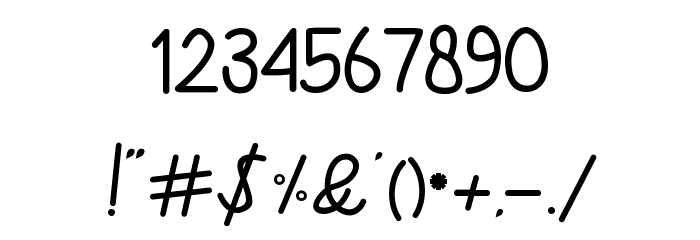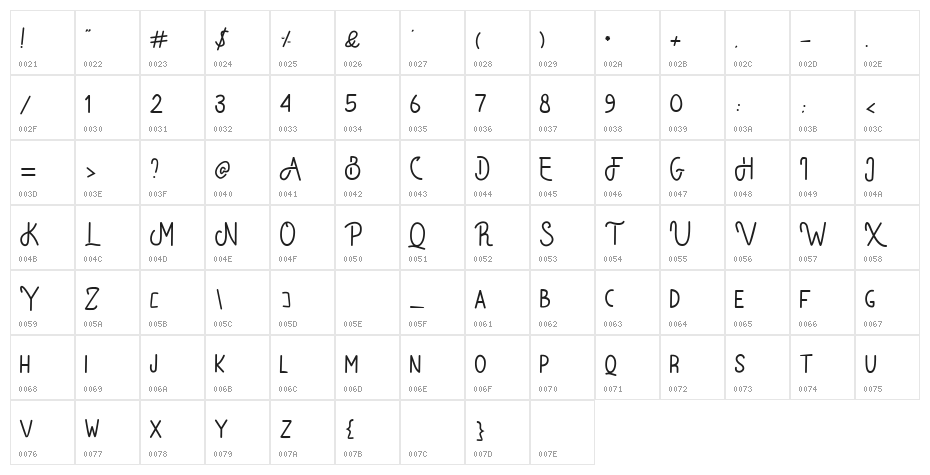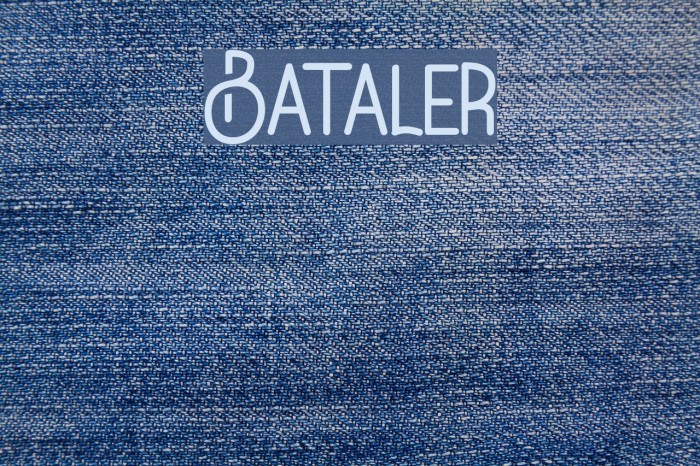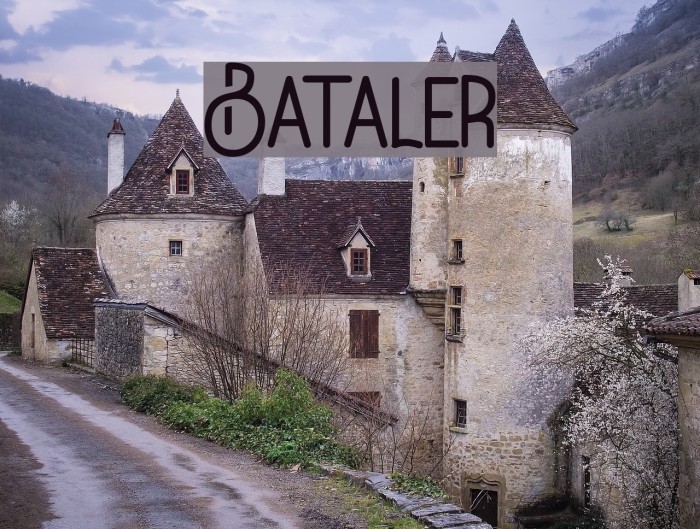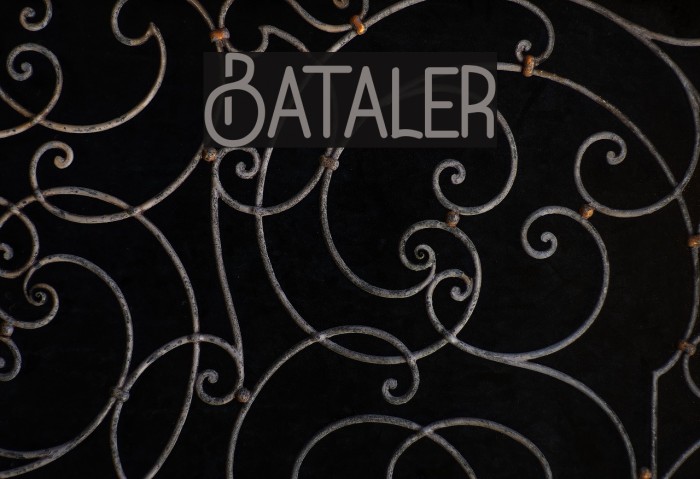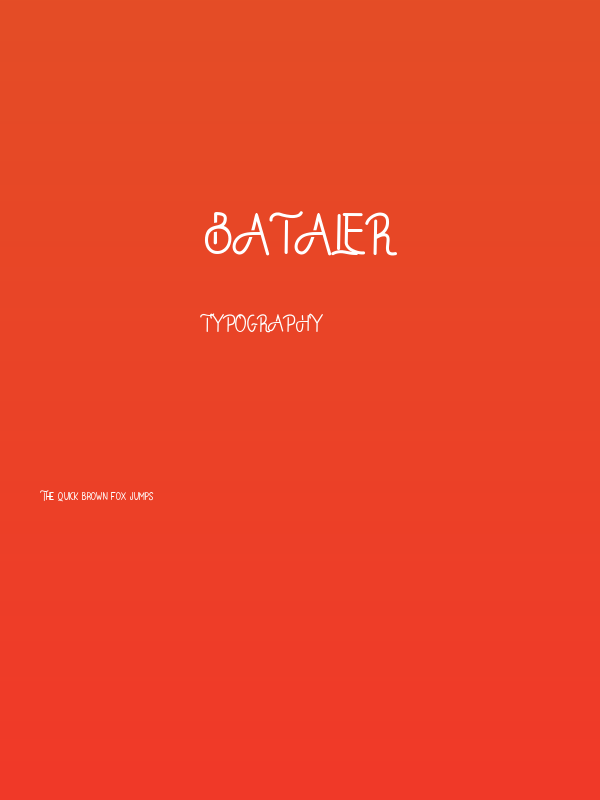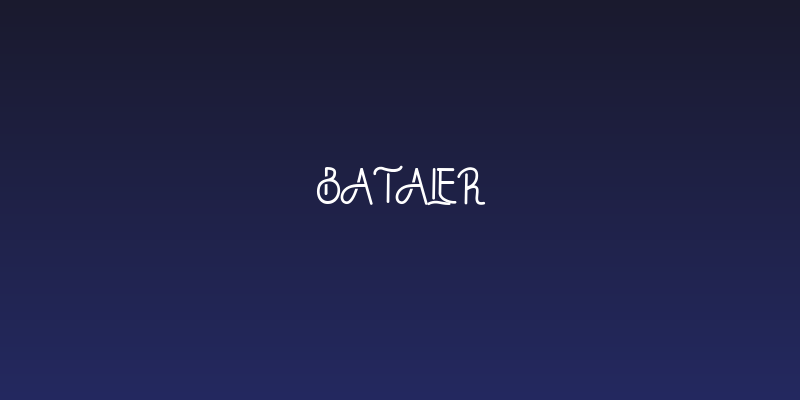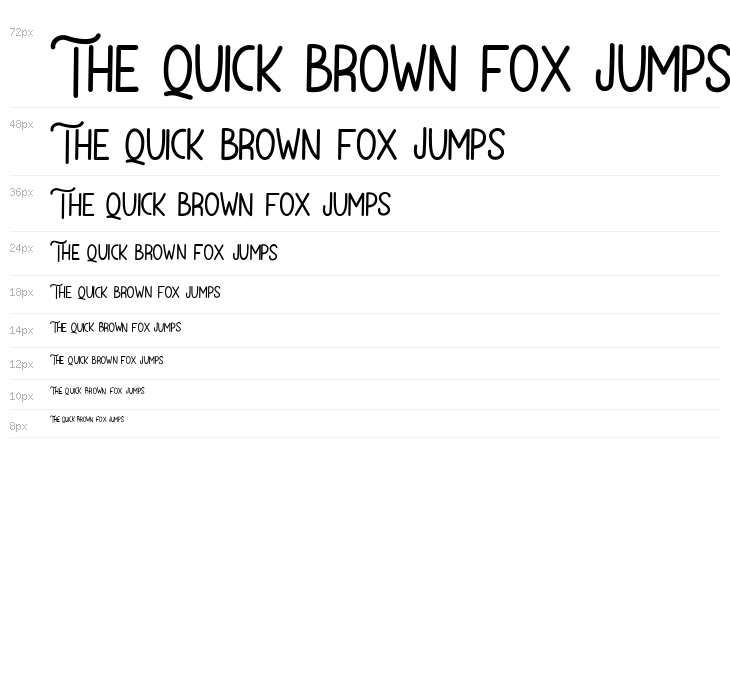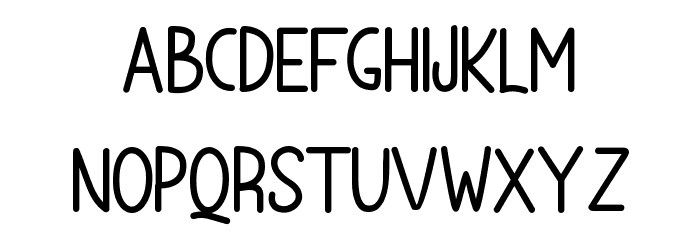
Bataler Font
Bataler Description
This playful and artistic font features a unique blend of curves and straight lines, creating a whimsical yet structured appearance. The uppercase letters have a distinct flair with loops and swirls, while the lowercase letters maintain a more straightforward design, providing a nice balance. The numbers are clear and legible, with a slight decorative touch that aligns with the overall style. Special characters are creatively designed, adding to the font's charm. The font's versatility makes it suitable for various creative projects, offering a modern twist with a hint of vintage elegance.